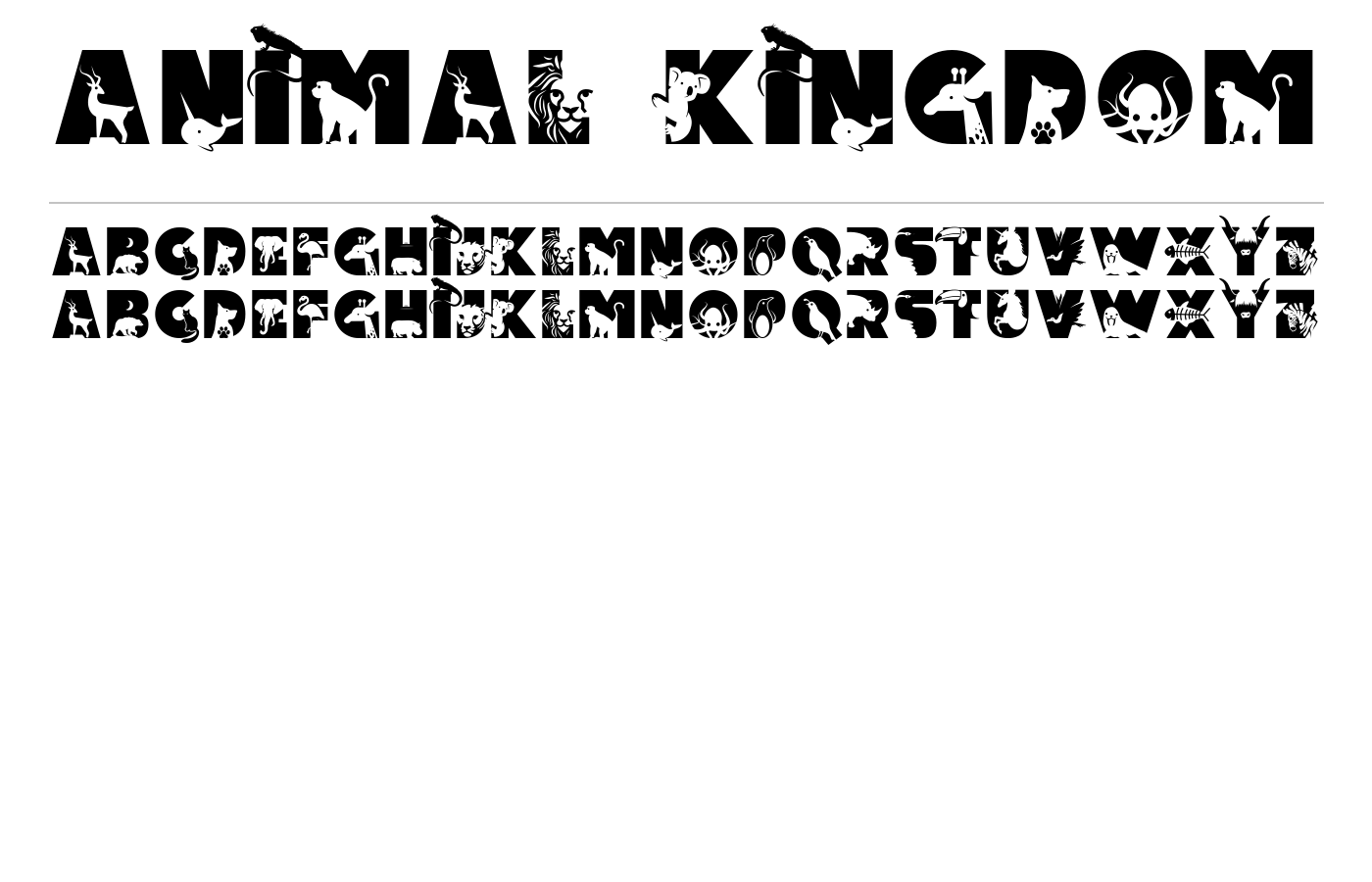
Animal Kingdom Font is a bold, playful display typeface featuring uppercase letters filled with detailed animal illustrations, creating a lively and whimsical effect. Its strong, blocky shapes combined with intricate animal silhouettes make it ideal for eye-catching headlines, posters, and creative branding related to wildlife, children’s products, or environmental themes. This font adds a fun and adventurous personality wherever a distinctive, nature-inspired look is desired.
Animal Kingdom Font
About Animal Kingdom Font